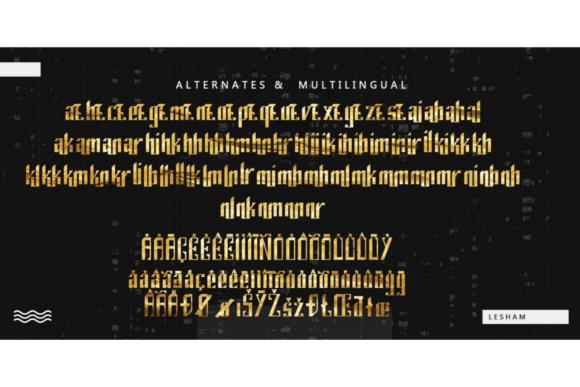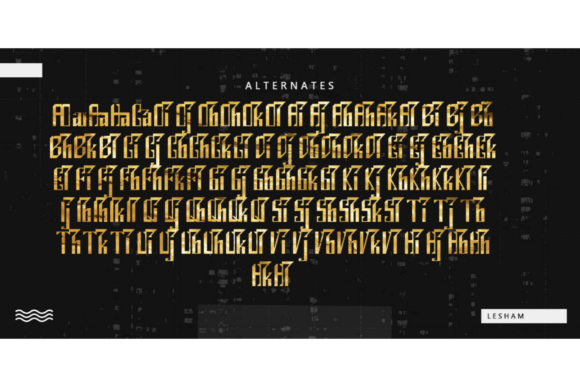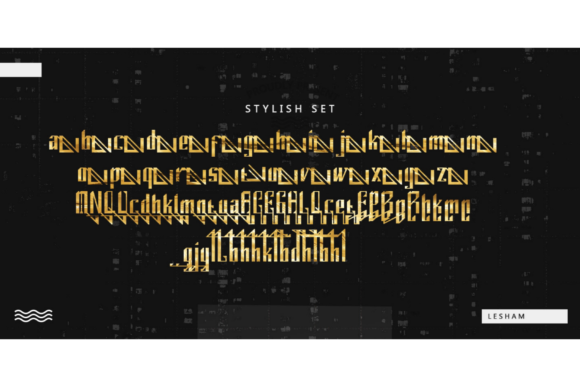
Lesham is a cool, bold and trendy display font.
This font is imposing and features uniquely shaped letters, and as a result, it will easily match a wide range of creations that require a distinct touch Lesham is PUA encoded which means you can access all glyphs and swashes with ease.